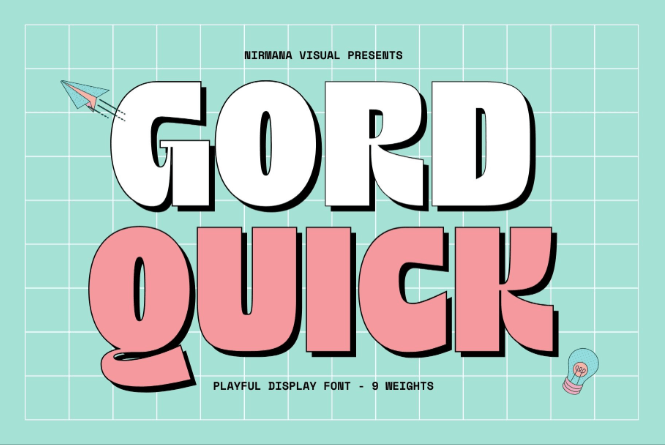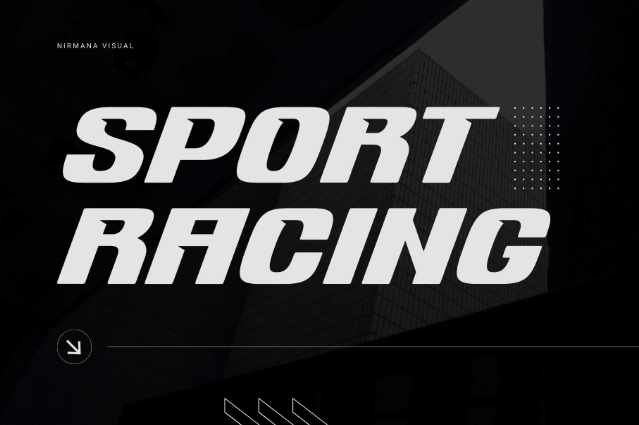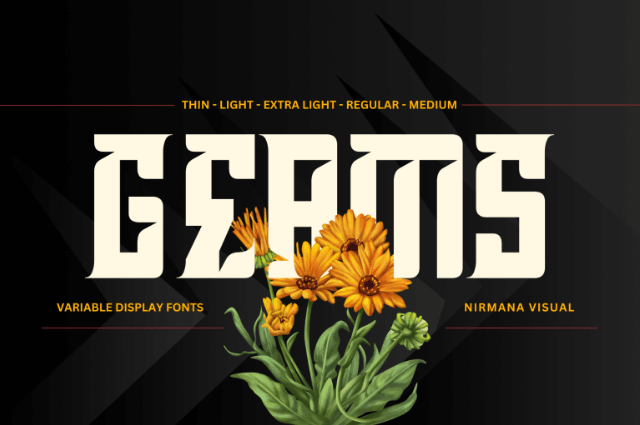
Top 10 Poster Fonts to Make Your Poster Stand Out
In branding and advertising, poster fonts are necessary for strategic tools. Picking the right and harmonious font with the design can instantly attract viewers and expedite the narrative. Whether bold and assertive or quirky and fun, a poster font shapes the way the audience interacts with your message.
Key Takeaways:
• Striking and unique typefaces are also a tool to stop people and appreciate your posters.
• You can communicate mood, intention, and vibe using fonts made for posters.
Unforgettable Poster Fonts for Your Latest Projects
With stand-out posters as your goal, you need fonts that break rules, push boundaries, and are festive in personality. So, you need the attractive, loud, expressive, and most importantly, unforgettable typefaces. Let’s explore our top 10 poster font selection!
1. Aloha Magazine
Aloha Magazine is a hybrid font that merges sophisticated sans-serif with classic serif elements. With nine different weights, it provides a flexible toolkit for designers seeking visual harmony across headlines and body text. Aloha Magazine’s stylish and adaptable nature makes it ideal for posters with upscale character capability.
2. York Game
York Game stands out as a mid-century-inspired sans-serif with a refined, geometric feel. Its minimal strokes and modern proportions bring a clean, structured look to the table. Unlike most vintage-style fonts, York Game tones down ornamental flair in favor of clarity, making it ideal for a stylish yet informative poster typeface.
3. Gord Quick
Gord Quick is a bold, black-style typeface designed to dominate space with its heavy form. Although equipped with 9 weight options, Gord Quick mainly leans toward heavy fonts, creating an aggressive attitude that gives a punchier, more contemporary impact.
4. Sport Racing
Sport Racing is an energetic, speed-driven display font crafted for athletic and performanced, -themed posters. Its italicized lean, strong strokes, and forward motion design mimic the adrenaline of motosports. Sport Racing’s polished look enhances its distinctive cut details, creating a striking 3D effect.
5. Fork Brush
Fork Brush embraces an expressive hand-painted aesthetic, capturing the dynamic textures of rel brush strokes. Its pronounced outline and spontaneous flow offer a gritty, authentic appeal, perfect for posters with rebellious branding. Compared to the typical poster fonts, Fork Brush feels raw and improvised, favoring an artistic aesthetic.
6. Molgak Classy
Molgak Classy balances contrasting styles between high fashion and modern minimalism. It exceeds the typical good poster fonts with its elegant contrasting strokes, giving off refined, contemporary elegance. While it fits within luxury looks, its slightly experimental letterforms give it a touch of originality to your posters.
7. Maiky Retro
Maiky Retro expresses the bold, stylized look of the 70s and 80s. It features curvy lines, bulbous shapes, and an extruding effect that adds dimension. Unlike other retro fonts that mimic script style, Maiky stands out with its bolder, cleaner look, focusing on fun vibes.
8. Geams
When looking for cool fonts for a poster, try Geams! Geams is a variable display font with a tall and rectangular design. Geams excels at bringing unique dynamics with its pointy and curvy surprises.
9. Keryla
Keryla is a bold retro font that blends traditional sophistication with dramatic flair. Its high contrast strokes to classic letterforms exude a vintage charm, but its sharp terminals and striking presence bring a modern edge. Keryla works well as a movie poster font where elegance and visibility are both key.
10. Glovae Modern
Glovae Modern channels a vintage serif structure with a luxurious, bespoke twist. The typeface pairs sharp angles with graceful curves, giving it a sophisticated and sparkling feel. Glovae Modern is ideal for posters with a premium or timeless goal.
Creating Impact with Thoughtful Poster Fonts
Designers often focus on color palettes and imagery, but let’s not forget that typography plays an equally significant role in poster design. The right font will guide the eye, build the vibe, and project expression, even in the limited poster space. Beyond aesthetics, font selection is it’s about delivering a message, too.Poster designs are meant to stop someone in their tracks, and our head-turning fonts are exceptional in that regard. Feel free to browse at Nirmana Visual for attractive and unforgettable fonts.